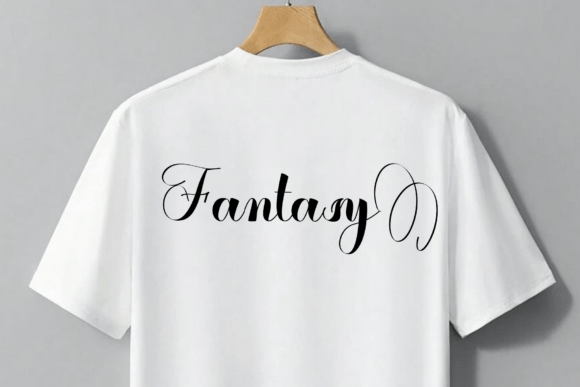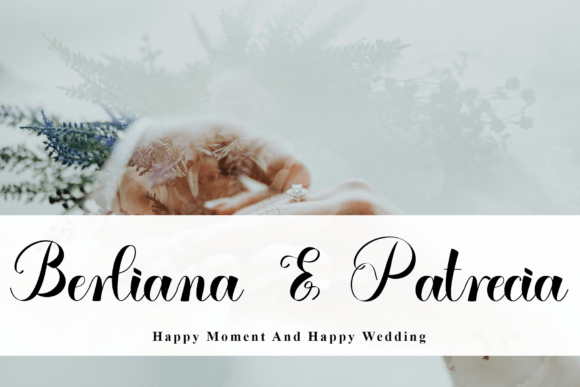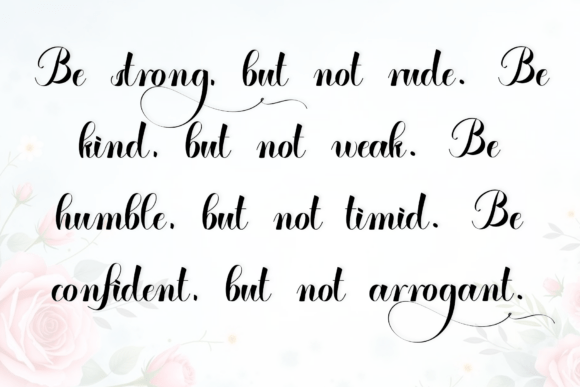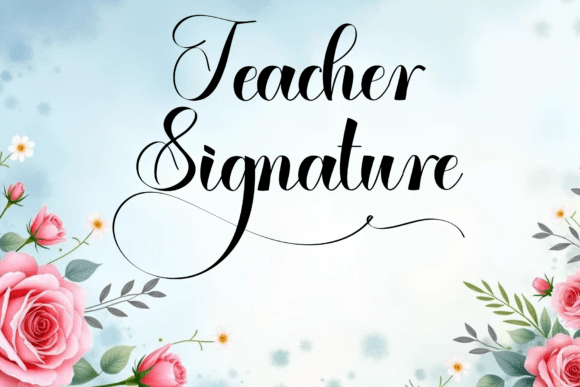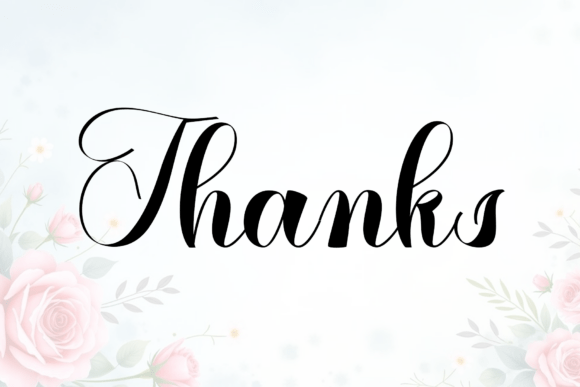
Introduction to Perfect Calligraphy Font
Perfect Calligraphy is a stylish and incredibly elegant handwritten font.
It looks stunning on wedding invitations, thank you cards, quotes, greeting cards, logos, business cards, and every other design which needs a handwritten touch This font is PUA encoded which means you can access all of the glyphs and alternates with ease.
Key Features of Perfect Calligraphy Font
Why Choose Perfect Calligraphy Font?
Perfect Calligraphy Font offers exceptional quality and versatility, making it a valuable addition to your design toolkit. Whether you’re creating for personal projects or commercial use, Perfect Calligraphy Font delivers professional results.